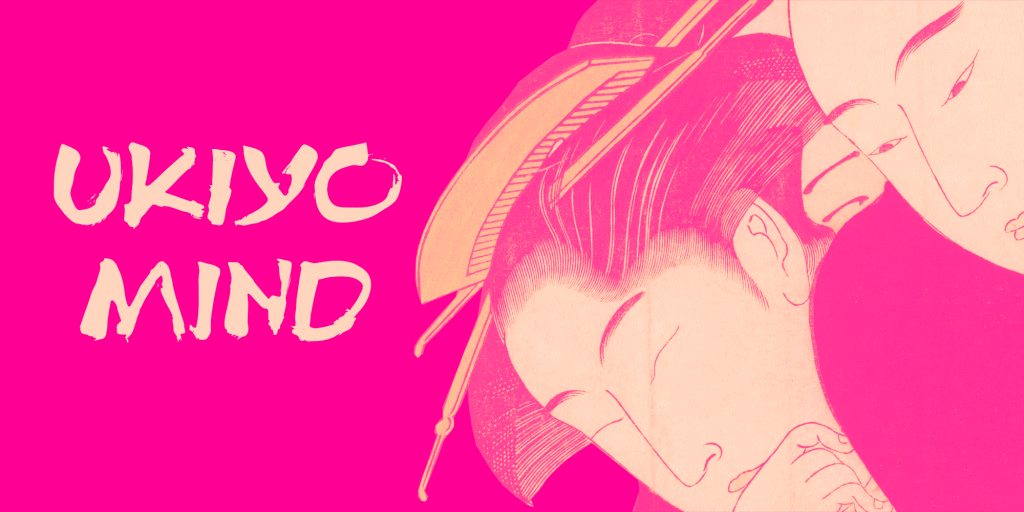
Ukiyo Mind
This was a bit of a trouvaille: I found an unfinished font in my ‘projects’ folder, thought it was really nice and finished it. The result is a really nice brush font!